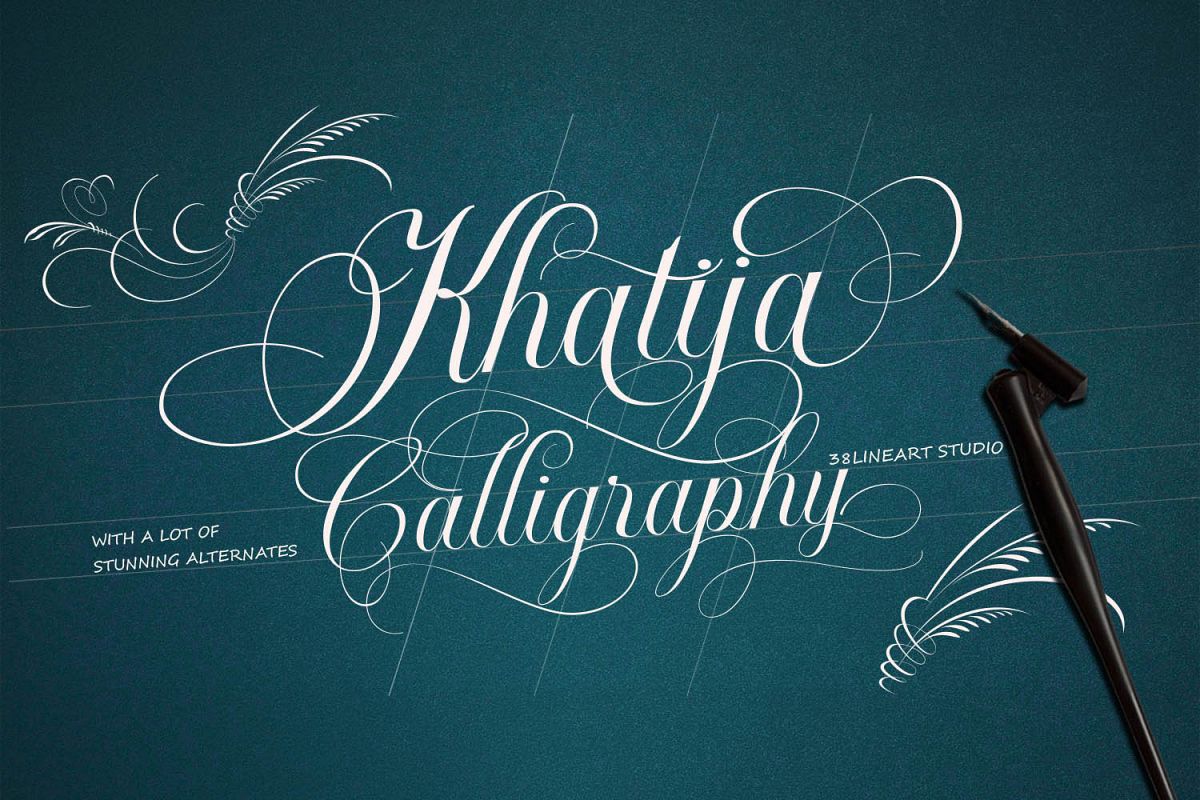
Khatija Calligraphy
hatija Calligraphy is a beautiful calligraphy font in base style of penmanship with a modern look, an eclectic concept by paying attention to the beautiful choice models. This fonts consist of 2,484 letters ready to use. To make it easier for you to use it, we utilize the access all alternates feature so that you only need to type and then select one of the letters then the alternative letters will appear automatically.We also use the stylistic set selection feature from SS01 - SS20, because we made a very unique alternate pair, alternate 1 paired with alternate 2, alternate 3 paired with alternate 4. We matched the alternate pair's kernings perfectly.For wedding themes and elegant product brands, believe it.. this font is the perfect choice, because we also prepare a ligature that raises flower ornaments to complement your design, you only need to press your keyboard | 1 | 2 | 3 to | 10. Now you have very beautiful flower ornaments. You can combine these ornaments again according to your needs.Khatija Calligraphy has 27 language support: Afrikaans Albanian Catalan Croatian Czech Danish Dutch English Estonian Finnish French German Hungarian Icelandic Italian Latvian Lithuanian Maltese Norwegian Polish Slovak Slovenian Spanish Swedish Turkish Zulu.